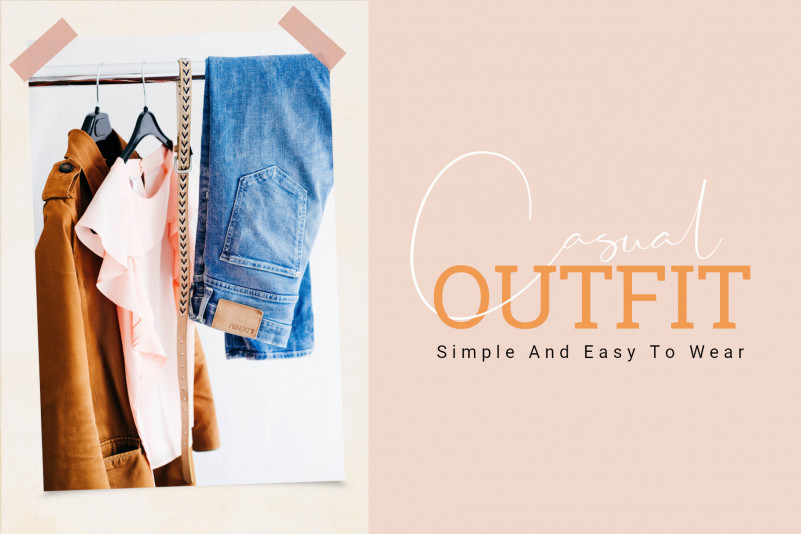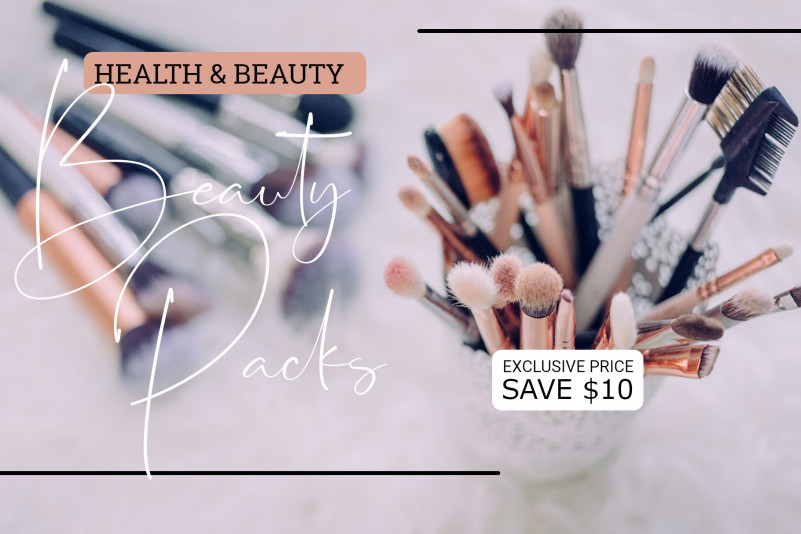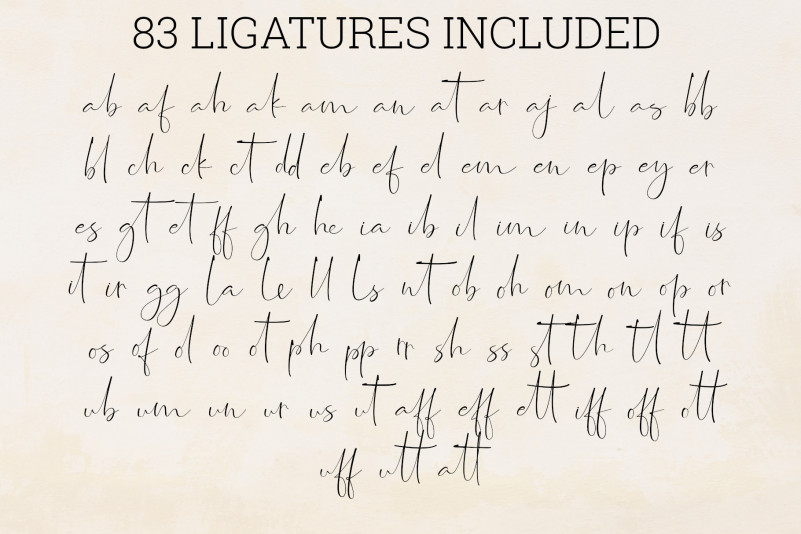
Jasmine Signature Font
Jasmine Signature Font is a natural handwritten signature font by including over 83 ligatures and standard character
Jasmine is perfect for branding, photography, invitations, quotes, watermarks, advertisements, product designs, labels, and much more!